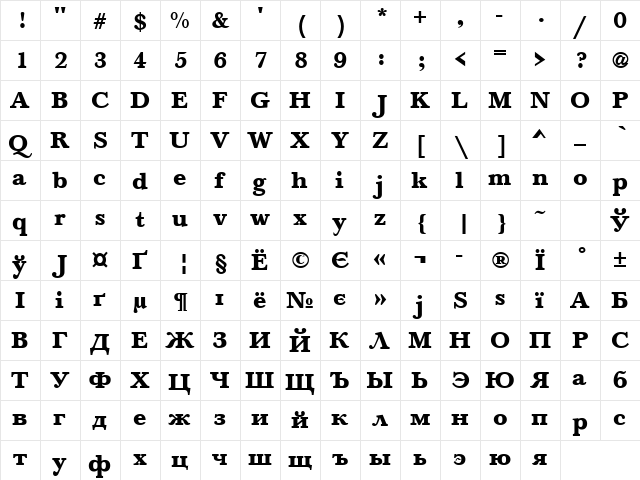
Beauty Bold
Design Context for Beauty Typeface
Beauty is a composed and adaptable typeface that performs quietly and consistently across a wide range of design contexts. Its bold stroke weight gives it real presence on the page.